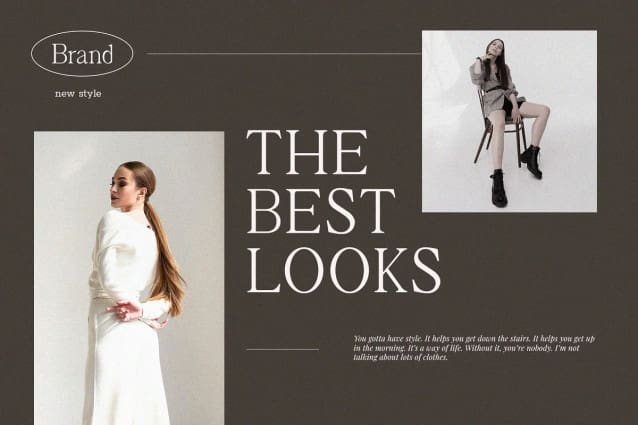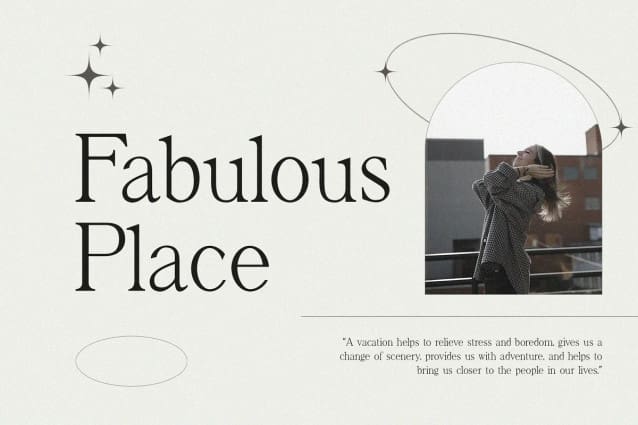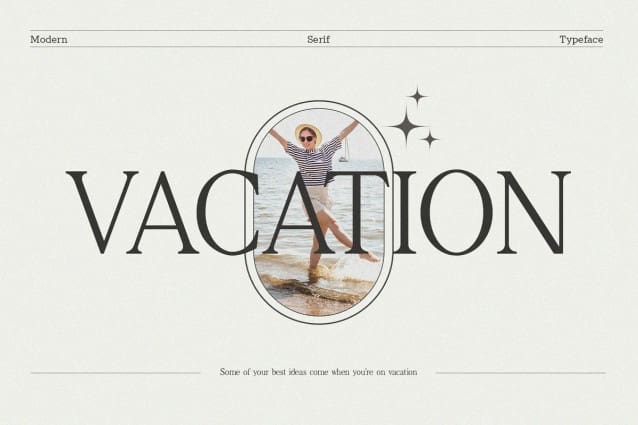
Vacation Font
Vacation Font is an elegant, authentic and regular lettered serif font. It will add a luxury spark to any design project that you wish to create! This fonts are great for writing titles, subtitles and descriptions. Vacation is a sophisticated, charming serif font with a fashionable touch. Specially designed for luxury, elegant, feminine projects, this font is perfectly suitable for creating modern, minimalist designs.